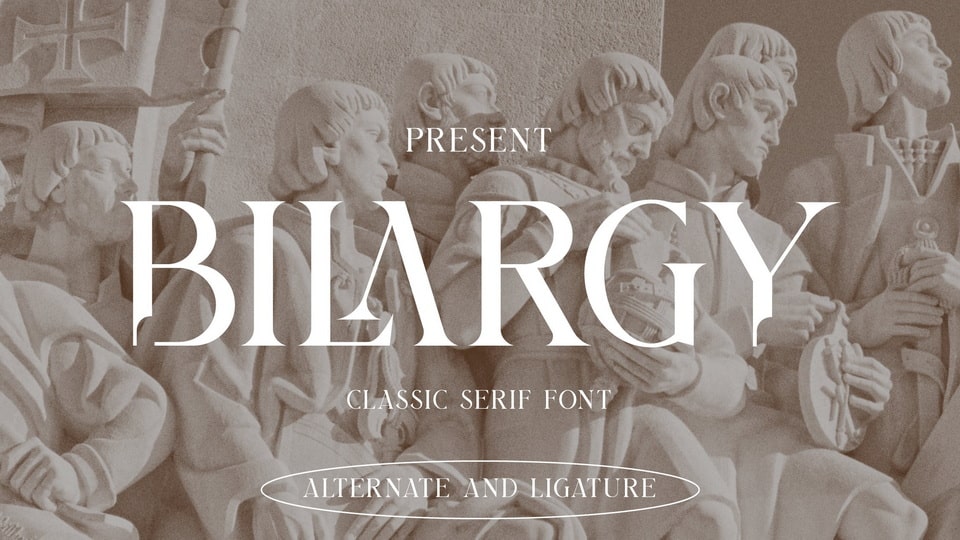
Download Bilargy font, a stylish and classic serif typeface that has a unique modern style and look. Bilargy font is perfect for elegant and luxurious logos, book or movie title designs, fashion brands, magazines, clothing, fonts, quotes and more.
Designer: Maryamtype Studio